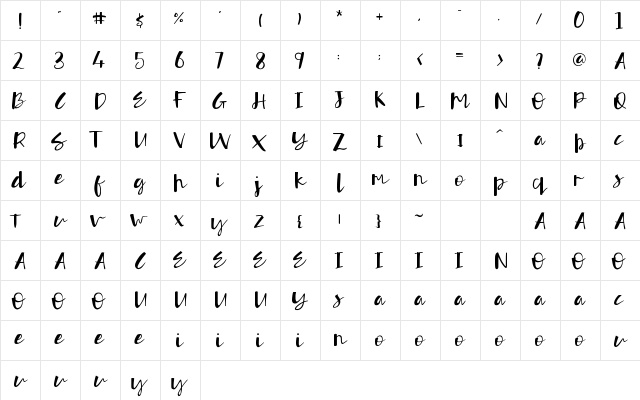
Authorfun Regular
| Foundry | Putracetol Studio |
| Designer | Putra Novembria Candra Kusuma |
Design Context for Authorfun Typeface
Authorfun has an approachable, lighthearted character — its loose, expressive forms are well-suited to children's content, casual branding, and fun-first design.
Font Pairing: Pairs well with a rounded or humanist sans for body copy, maintaining the friendly tone without relying on Authorfun to carry extended reading.
Pro Tip: Use Authorfun at larger display sizes where its expressive character can land. Pair with a clean, simple sans for body copy to maintain readability.